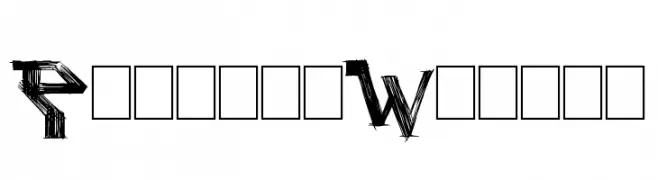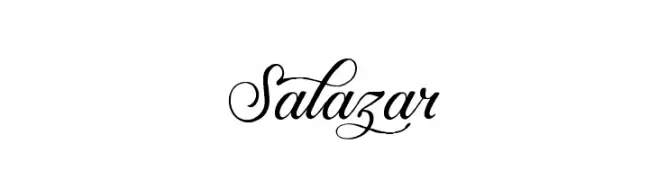
( imagex - www.imagex-fonts.com )
A bold, sketch-like font with jagged, artistic strokes and a rebellious style.
( weknow - Wino S Kadir - www.creativefabrica.com/designer/weknow/ )
A futuristic, hollow font with geometric and angular shapes.
( weknow - Wino S Kadir - www.creativefabrica.com/designer/weknow/ )
A bold, geometric font with sharp angles and a futuristic style.
( weknow - Wino S Kadir - www.creativefabrica.com/designer/weknow/ )
A hollow, inverse, geometric font with a futuristic and edgy style.
( weknow - Wino S Kadir - www.creativefabrica.com/designer/weknow/ )
A bold, italicized font with angular, geometric characters for a futuristic look.
( weknow - Wino S Kadir - www.creativefabrica.com/designer/weknow/ )
A bold, angular, and italic font with a futuristic style.
( weknow - Wino S Kadir - www.creativefabrica.com/designer/weknow/ )
A bold, geometric font with angular, futuristic design elements.
( George Williams - web.archive.org/web/20051223080638/bibliofile.mc.duke.edu/gww/fonts/fonts.html )
A decorative and avant-garde font with geometric shapes and fragmented lines.
( Konstantine Studio - www.behance.net/konstantinestudio )
An elegant cursive font with flowing, ornate letters and graceful connections.